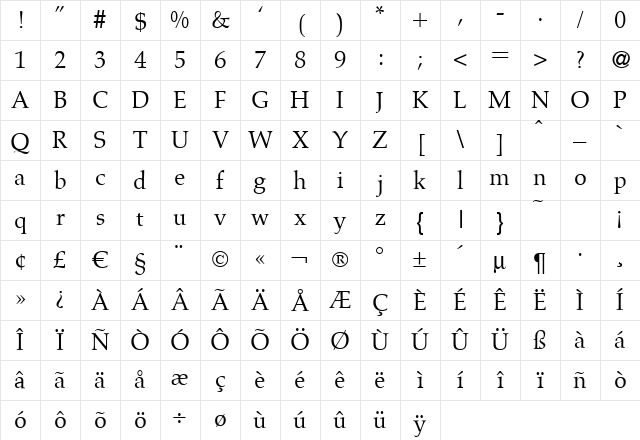
A760-Roman Regular
Design Context for A760-Roman
A760-Roman is a composed and adaptable typeface that performs quietly and consistently across a wide range of design contexts.
Pro Tip: Use A760-Roman in both headline and body roles to test its range before committing to a single application.